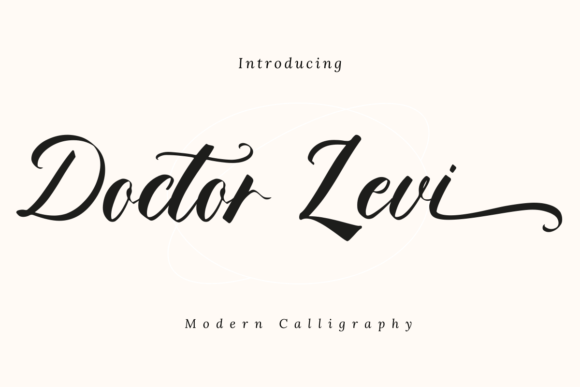
In a digital world teeming with monotonous fonts, Doctor Levi emerges as a beacon of individuality, a font crafted to elevate your designs to dizzying heights. Its strokes, like the delicate brushwork of a master calligrapher, dance across the screen, leaving a trail of elegance in their wake.
Doctor Levi's versatility is its crowning glory, effortlessly adapting to a myriad of projects, from whimsical invitations to captivating logos. Its carefully balanced weight, neither too thin nor too thick, strikes a harmonious chord, ensuring legibility without sacrificing visual appeal.
With Doctor Levi, your words take on a life of their own, captivating your audience with their charm and sophistication. Its varied character set, boasting a treasure trove of glyphs and ligatures, empowers you to unleash your creativity, transforming mundane text into breathtaking works of art.
Step into a world where fonts are not mere tools, but expressions of your unique style. Doctor Levi beckons you to embrace its allure, to let its graceful curves and sweeping strokes carry your message to new heights. Its PUA encoding ensures seamless access to the font's full potential, unlocking a universe of design possibilities.
Doctor Levi is more than just a font; it's an experience, a journey into the realm of visual aesthetics. It's a font that breathes life into your creations, transforming them into captivating expressions of your imagination. Embrace Doctor Levi today and embark on a creative odyssey that will leave you spellbound.